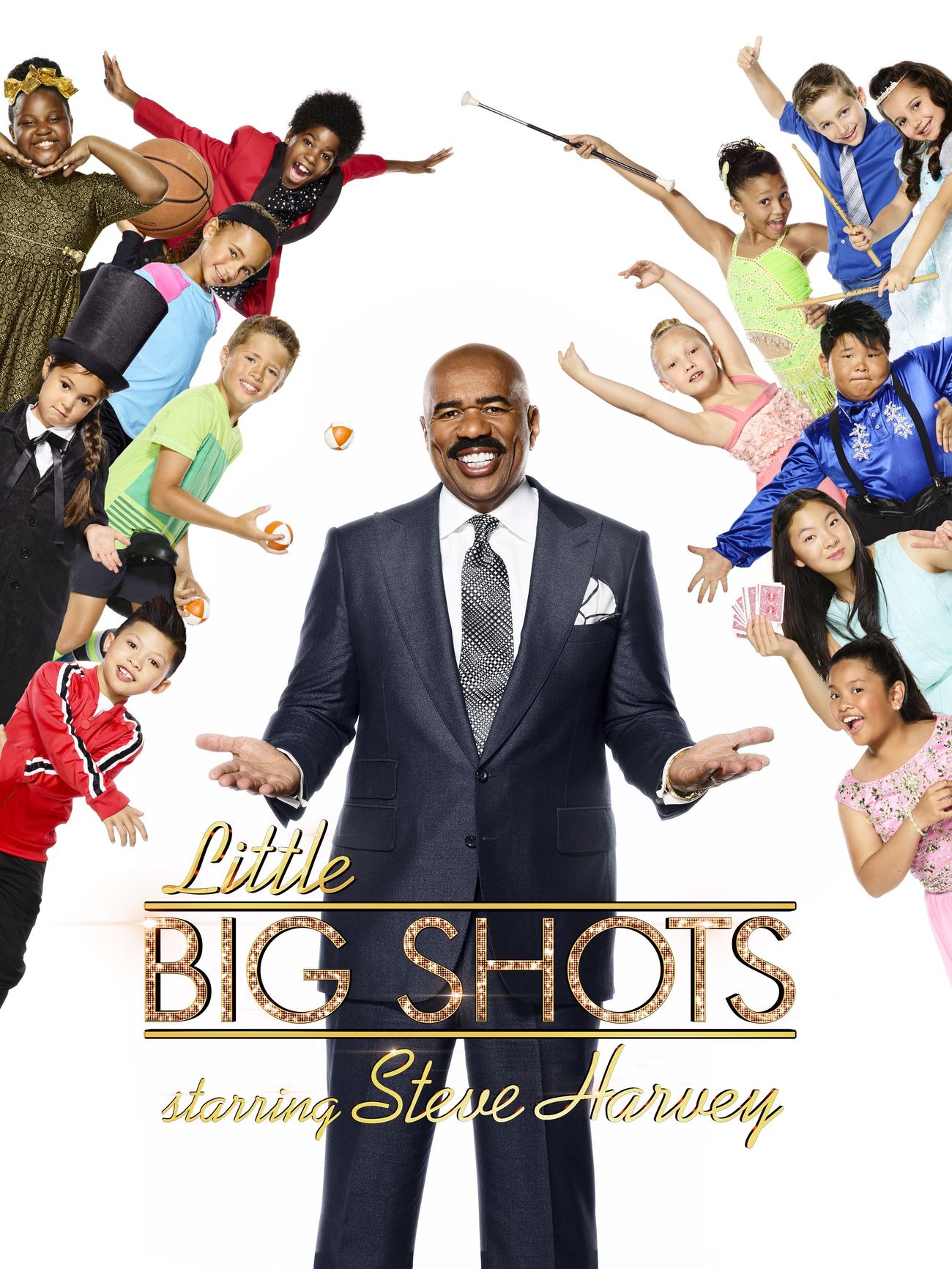
Little Big Shots Font
ComedyLittle Big Shots is a popular American TV show that premiered on NBC in March 2016 and is hosted by Steve Harvey. The show features talented children from various fields such as music, dance, and comedy, showcasing their skills and entertaining the audience.
The TV show's logo primarily uses Futura Book, a typeface designed by Paul Renner. The supporting monotone script used in the logo is Kaufmann, created by Max R. Kaufmann for ATF in 1936.